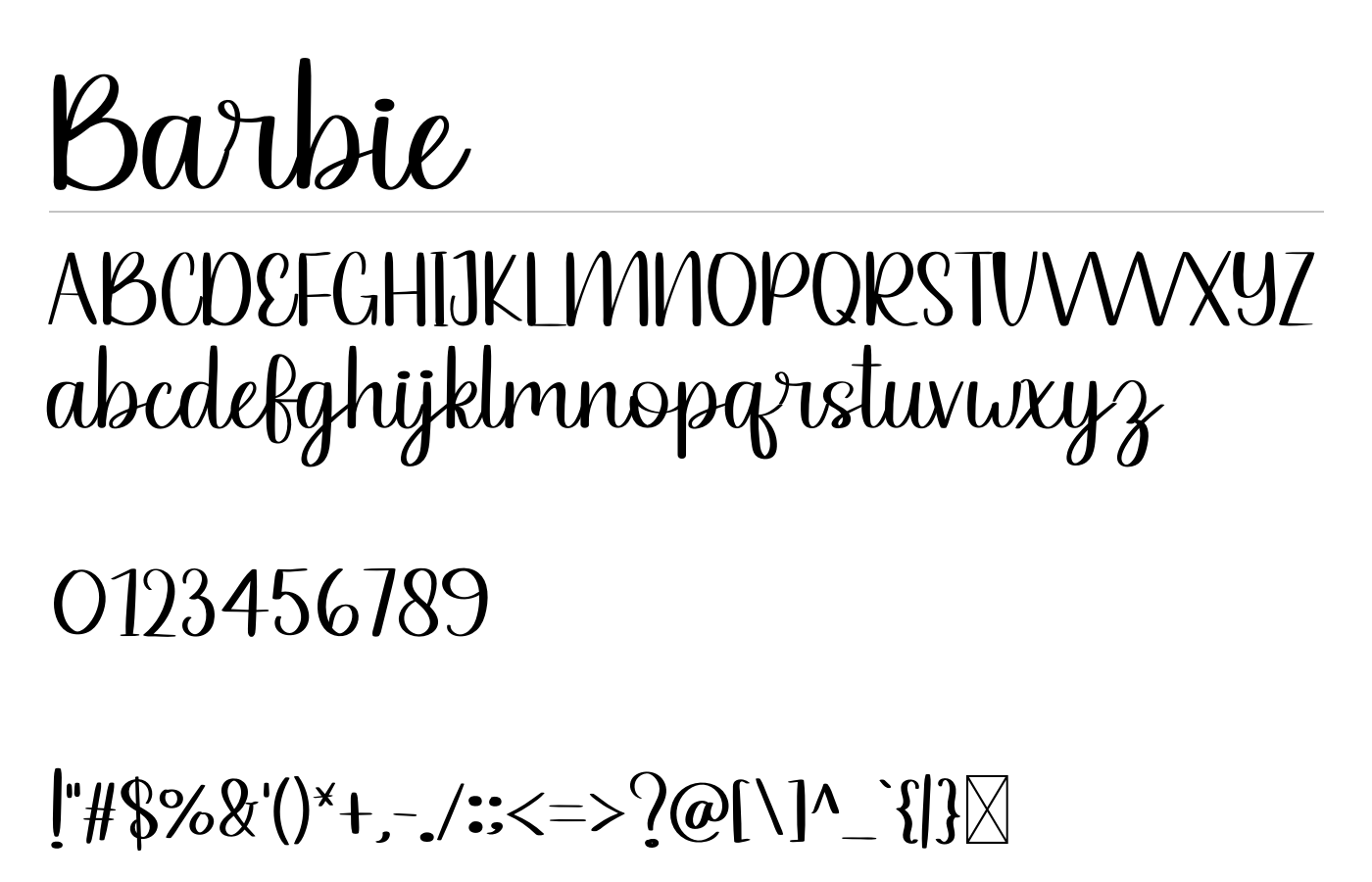
Barbie Font is a playful and elegant script typeface with a casual, hand-lettered feel. Its tall, slightly condensed letterforms feature smooth, flowing strokes and a subtle contrast in thickness, making it charming and approachable for creative designs, fashion branding, invitations, and lively headlines. This font works well in projects that seek a friendly yet stylish vibe, combining sophistication with a youthful spirit.
Barbie Font
About Barbie Font